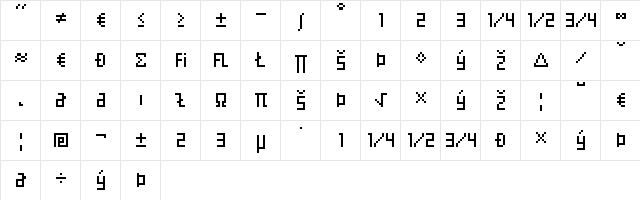
Eboy REGBetaExpert Font Preview
Eboy REGBetaExpert
Design Context for Eboy Typeface
Eboy takes a measured approach to typography — its balanced proportions and neutral character make it a reliable workhorse for both digital and print work.
Pro Tip: Use Eboy in both headline and body roles to test its range before committing to a single application.